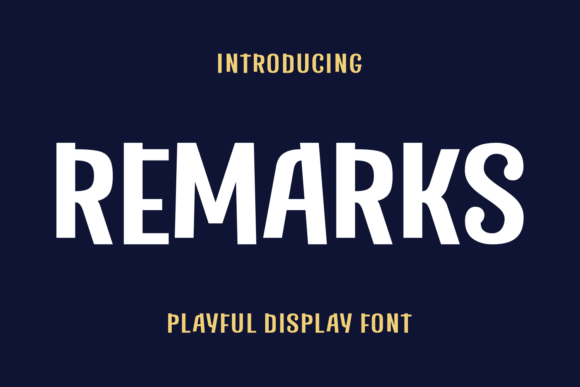
Remarks: A Playful Display Font for Lively Projects
If you are looking to add a touch of fun and personality to your next creative project, the Remarks typeface is an excellent choice. This font stands out in the crowded market as a unique free download option that doesn't compromise on style or quality. Many designers searching for a Remarks free download are often disappointed by low-quality scans or limited character sets, but this display font offers a complete package with bold, rounded letters that demand attention. Whether you need a Remarks font download for a quick social media graphic or a full branding identity, this playful typography delivers a friendly vibe that resonates with modern audiences.
In the world of digital design, finding a premium Display font that remains accessible can be challenging. Remarks bridges this gap perfectly, offering the visual impact of expensive custom lettering while remaining available for immediate use. Its distinct shape makes it ideal for headlines, posters, and any design element that requires a lively, friendly touch. Below, we will explore why this free Display font for Fonts enthusiasts has become a favorite among professionals and hobbyists alike.
Design & Style Analysis
The visual personality of Remarks is defined by its approachable nature. Unlike rigid geometric sans-serifs, this professional Fonts font features soft curves and generous spacing that invite the reader in. It strikes a balance between whimsy and readability, making it versatile enough for various contexts without feeling childish.
Letterforms and Weight
The letterforms in Remarks are constructed with a consistent stroke weight that gives them a substantial presence on the page. The rounded terminals soften the edges, creating a mood that is both energetic and welcoming. When compared to other best Display fonts for use case scenarios like headers or logos, the weight distribution ensures legibility even at smaller sizes, provided the context is not too cluttered.
Spacing and Rhythm
One of the standout features of this typeface is its natural rhythm. The tracking is slightly open, which prevents the text from feeling cramped—a common issue with many free Display font options. This breathing room allows the characters to stand out individually while maintaining a cohesive line of text. For those considering a font bundle, Remarks often pairs well with more neutral body text because its distinct personality does not overwhelm the layout when used correctly.
Best Uses for Remarks
Understanding where to apply Remarks is just as important as knowing how to install it. Its playful yet professional aesthetic makes it suitable for a wide range of applications, from commercial branding to personal projects.
Remarks for Logo Design and Branding
When building a brand identity, you need a mark that is memorable. Using Remarks for logo design can instantly communicate a brand's values of friendliness and approachability. Because the letters are bold and distinct, it works exceptionally well for Remarks for branding initiatives where the goal is to create a strong first impression. The rounded shapes soften the corporate edge, making it perfect for startups, cafes, or lifestyle brands.
Remarks for Posters and Social Media
In the fast-paced world of digital marketing, grabbing attention is key. Remarks for posters/social media/packaging is a powerful combination. The high contrast and bold strokes ensure that headlines pop against busy backgrounds. Whether you are designing an event flyer or an Instagram story, this professional Fonts font helps your message cut through the noise effectively.
Remarks for Wedding Invitations and Typography
While often associated with casual designs, Remarks for wedding invitations/cards/typography can work beautifully for non-traditional ceremonies. Its hand-drawn feel adds a personal touch that standard serif fonts lack. It brings a sense of joy and celebration to paper goods, making it a great alternative to script fonts for couples who want something clean but warm.
Font Pairing & Combinations
Selecting the right companion typeface is crucial for balancing the boldness of Remarks. Since this is a display font, it should generally be paired with a cleaner, more understated typeface to maintain hierarchy and readability.
When asking what fonts pair well with Remarks, the answer usually lies in simplicity. A classic pairing involves combining Remarks with a geometric sans-serif like Montserrat or Open Sans. The neutral lines of the sans-serif provide a stable foundation that lets the playful curves of Remarks shine without competing for attention. This creates a balanced Remarks font pairing strategy that looks polished in print and digital formats.
For a more sophisticated look, consider pairing it with a humanist serif. The organic curves of the serif complement the rounded terminals of Remarks, creating a harmonious relationship between the two styles. If you are working on a font pack or a complex layout, using a light weight of a similar sans-serif for body copy ensures that the text remains legible while the headings retain their character.
When comparing Remarks vs similar font options, note that Remarks offers a more distinct personality than generic bubble fonts. It feels more intentional and less like a novelty item. By focusing on proper kerning and choosing a complementary body font, you can elevate your projects from amateur to professional. Whether you are creating a free Display font for Fonts portfolio or a commercial campaign, Remarks provides the flexibility and charm needed to make your designs stand out.